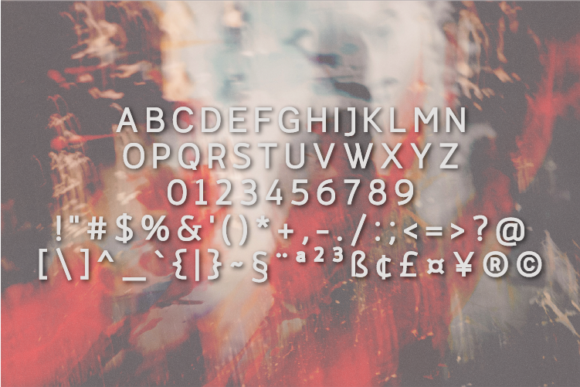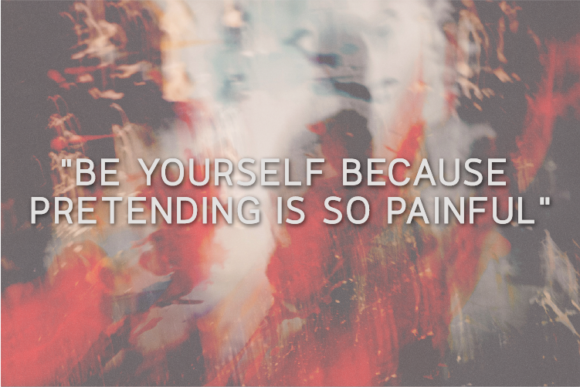
Introduction to Happle Font
Happle is a natural and authentic sans serif font.
This font is ideal for writing web designs, business cards, or pretty much anything else that requires a unique touch .
Key Features of Happle Font